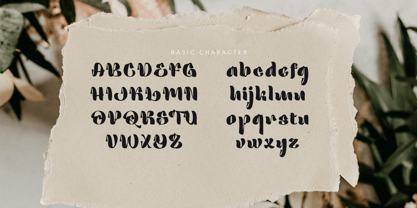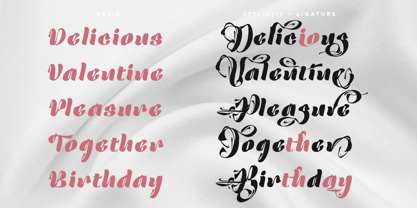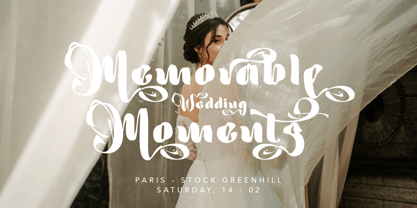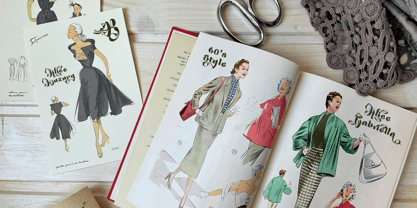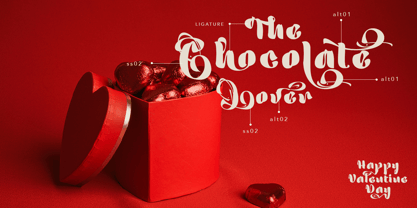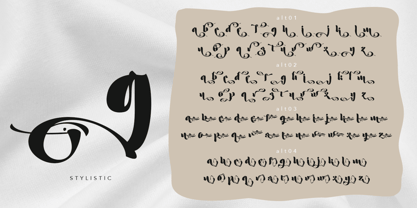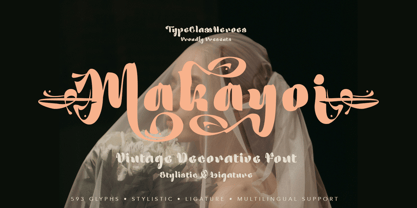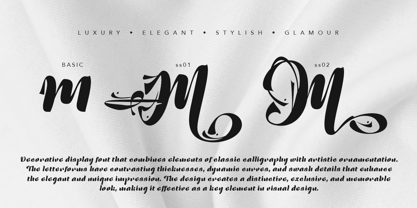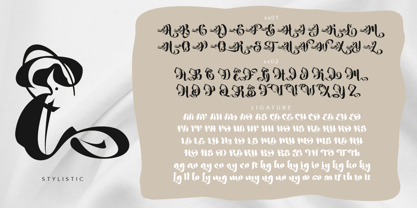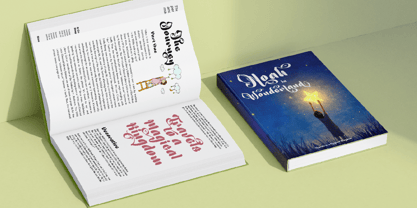
Makayoi
par TypeClassHeroes
La famille de polices Makayoi a été conçue par Suandana ipandemade et publiée par TypeClassHeroes. Makayoi contient 2 styles et options de package familial. En savoir plus sur cette famille
Introducing Makayoi, this font is a decorative vintage font that combines elements of classic calligraphy with artistic ornamentation. The letterforms have contrasting thicknesses, dynamic curves, and swash details that enhance the elegant and unique impression. The design creates a distinctive, exclusive, and memorable look, making it effective as a key element in visual design. This font is suitable for logos and branding of food and beverage products; snack packaging that seeks a unique, premium, or traditional-modern look; posters, banners, and promotional headlines due to its striking and attention-grabbing letterforms; vintage, retro, classic, or handcrafted designs; and product packaging that seeks a distinctive and recognizable visual identity.